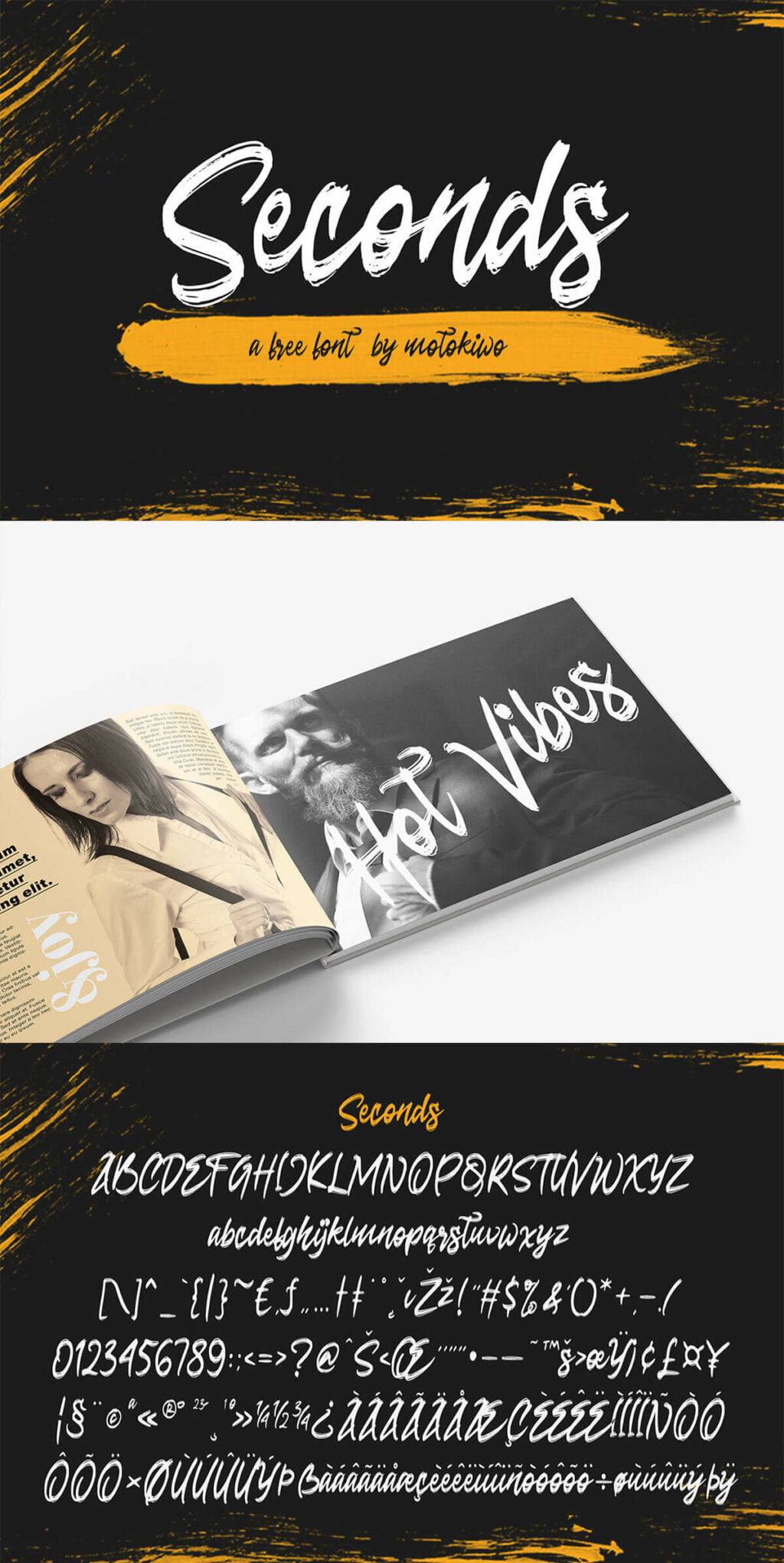
Seconds Font
Seconds Font is a high quality Brush font that is designed by Motokiwo and is available for free download personal & commercial use. The free version provides all uppercase and lowercase letters and a few special characters too.
Seconds Rough Brush Script Font